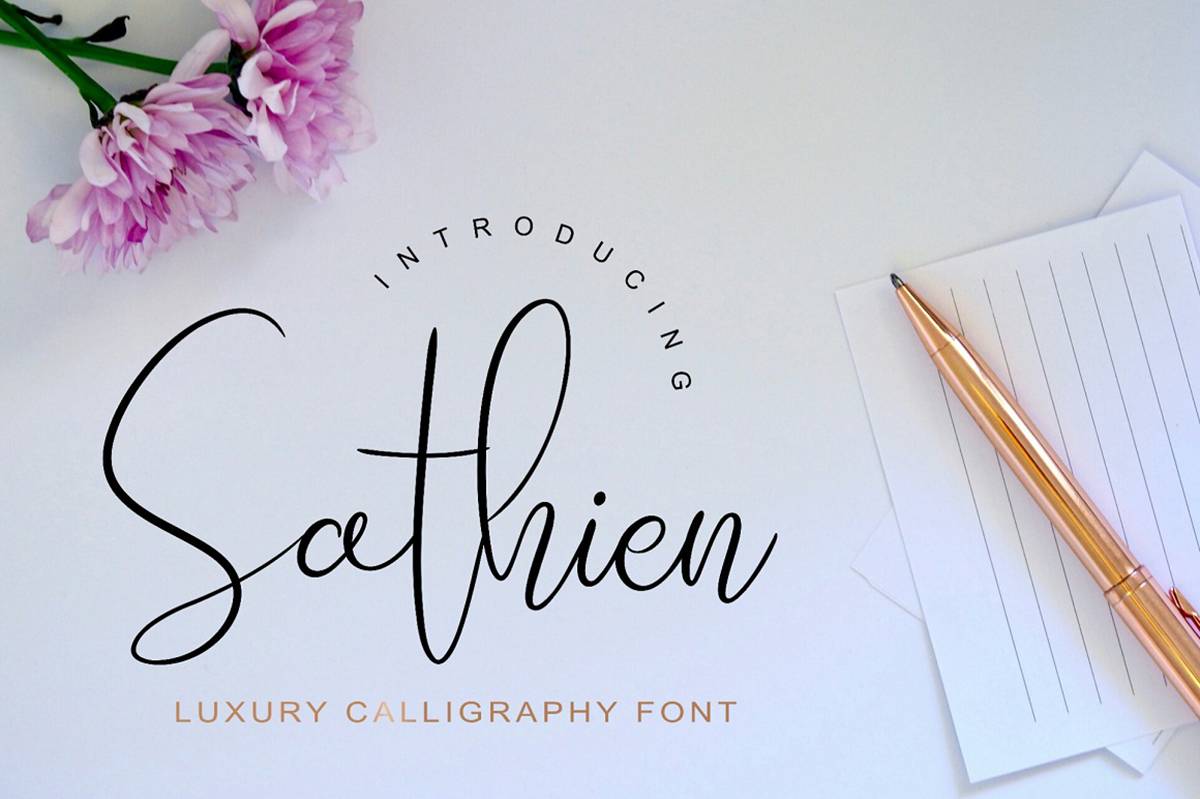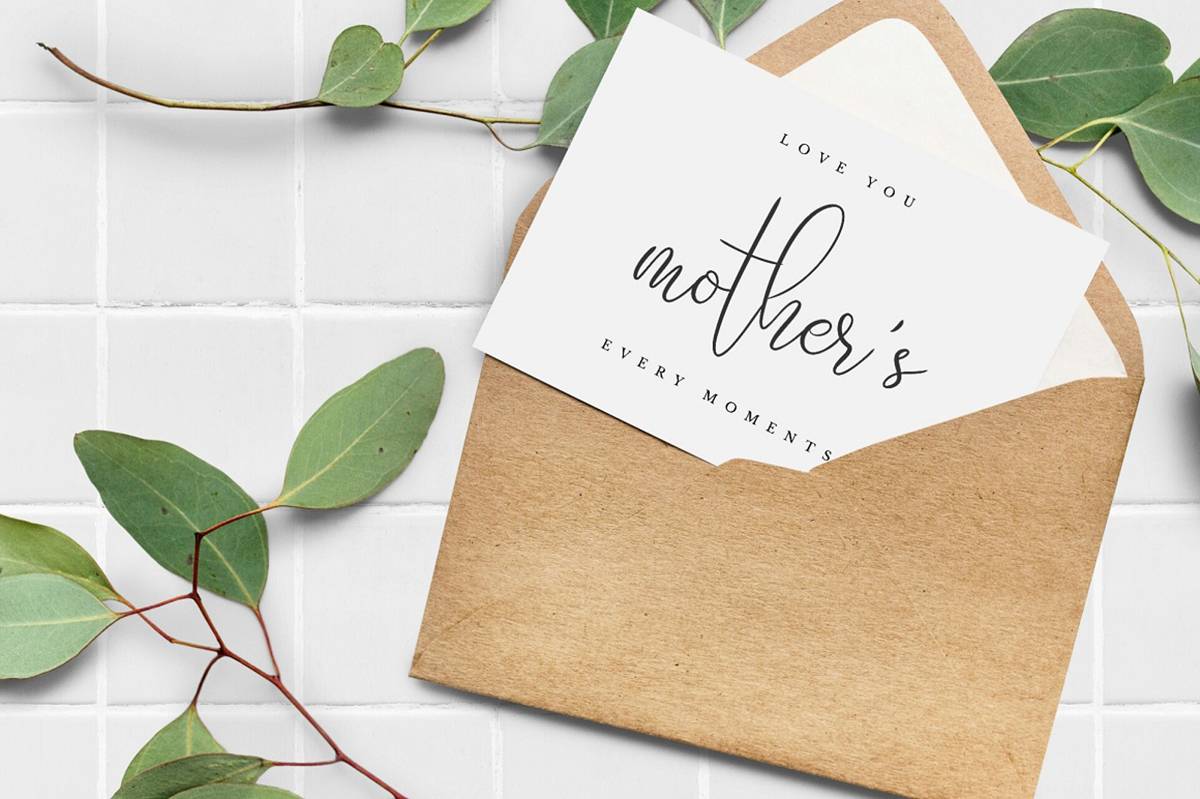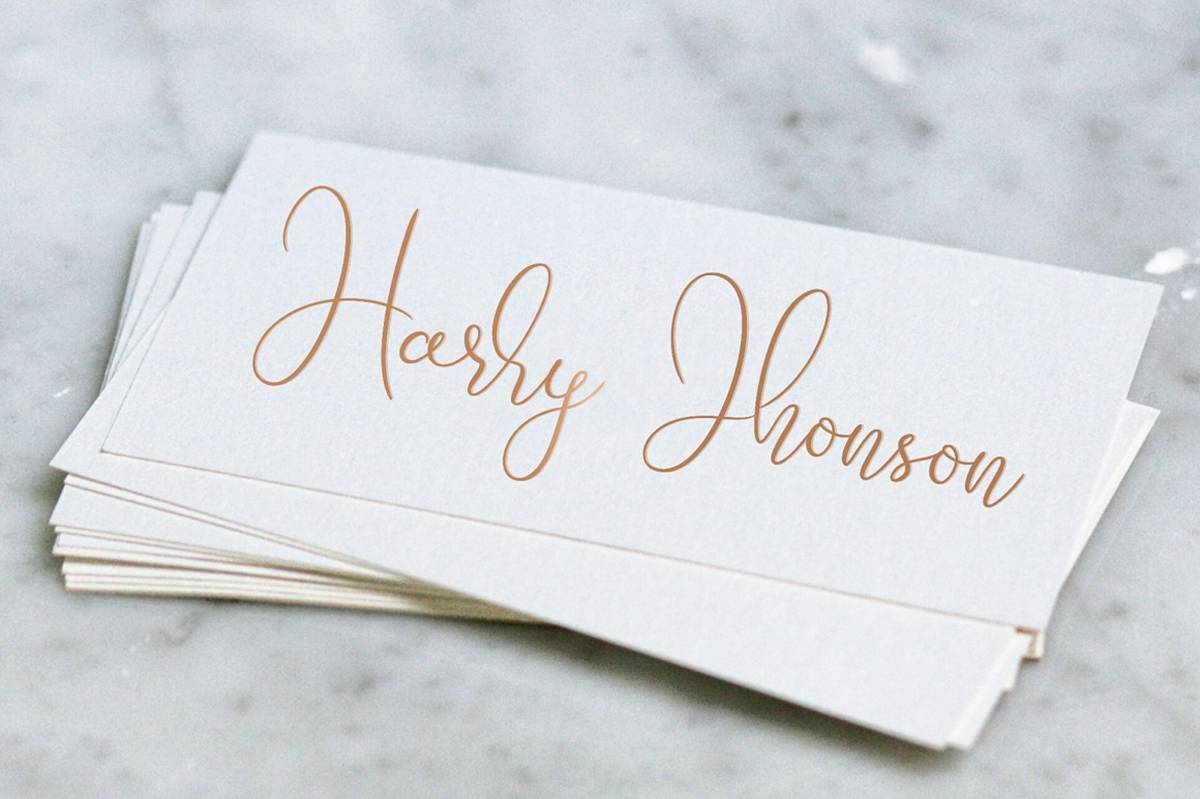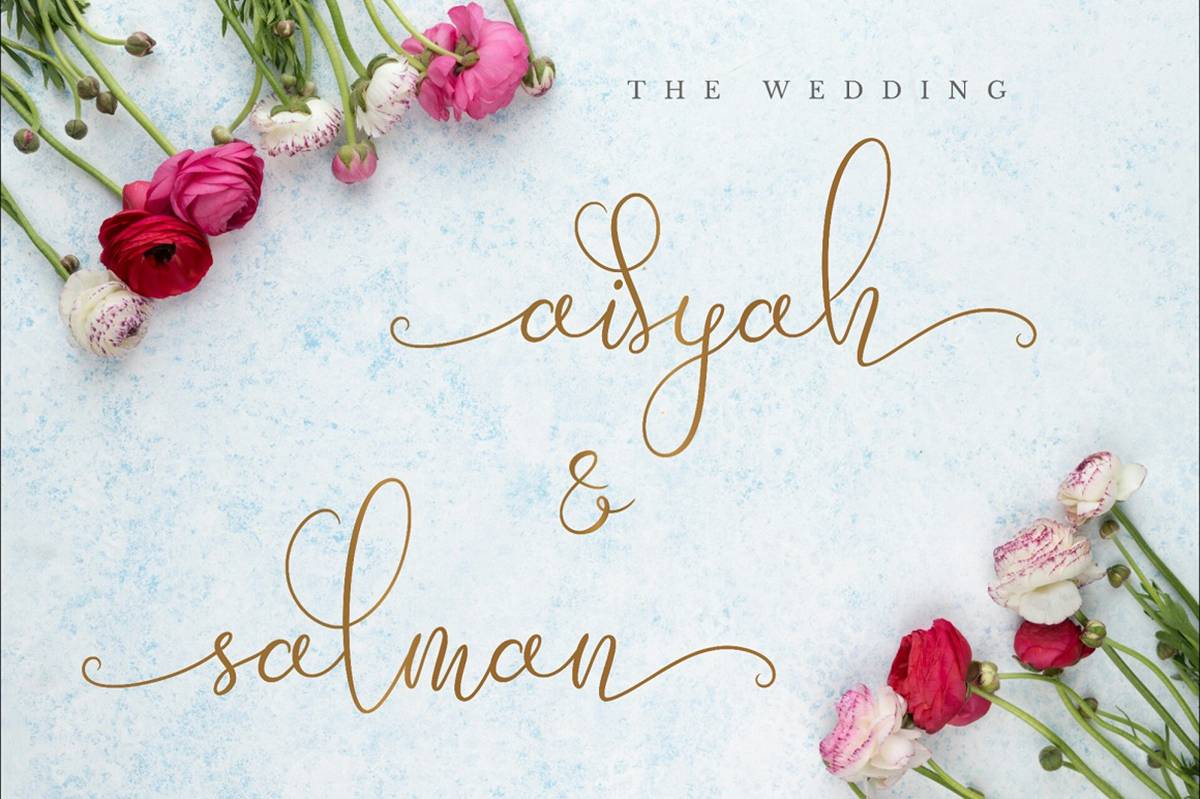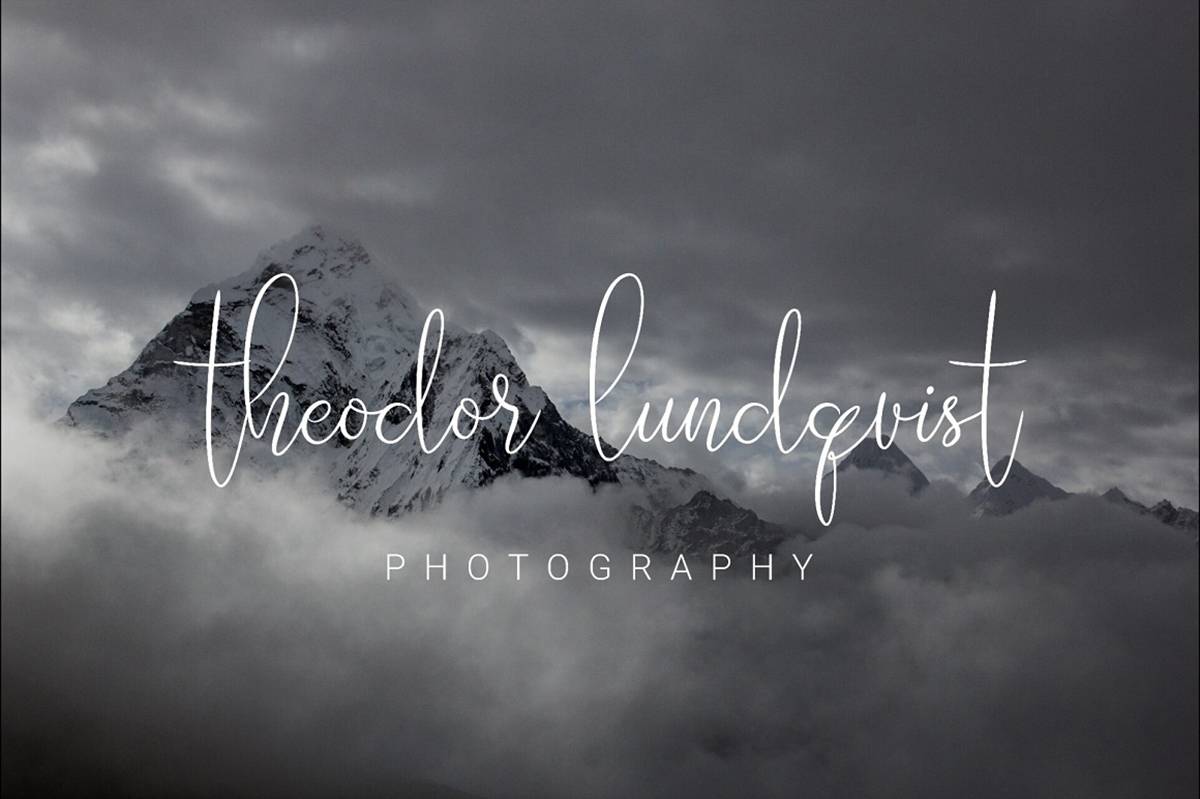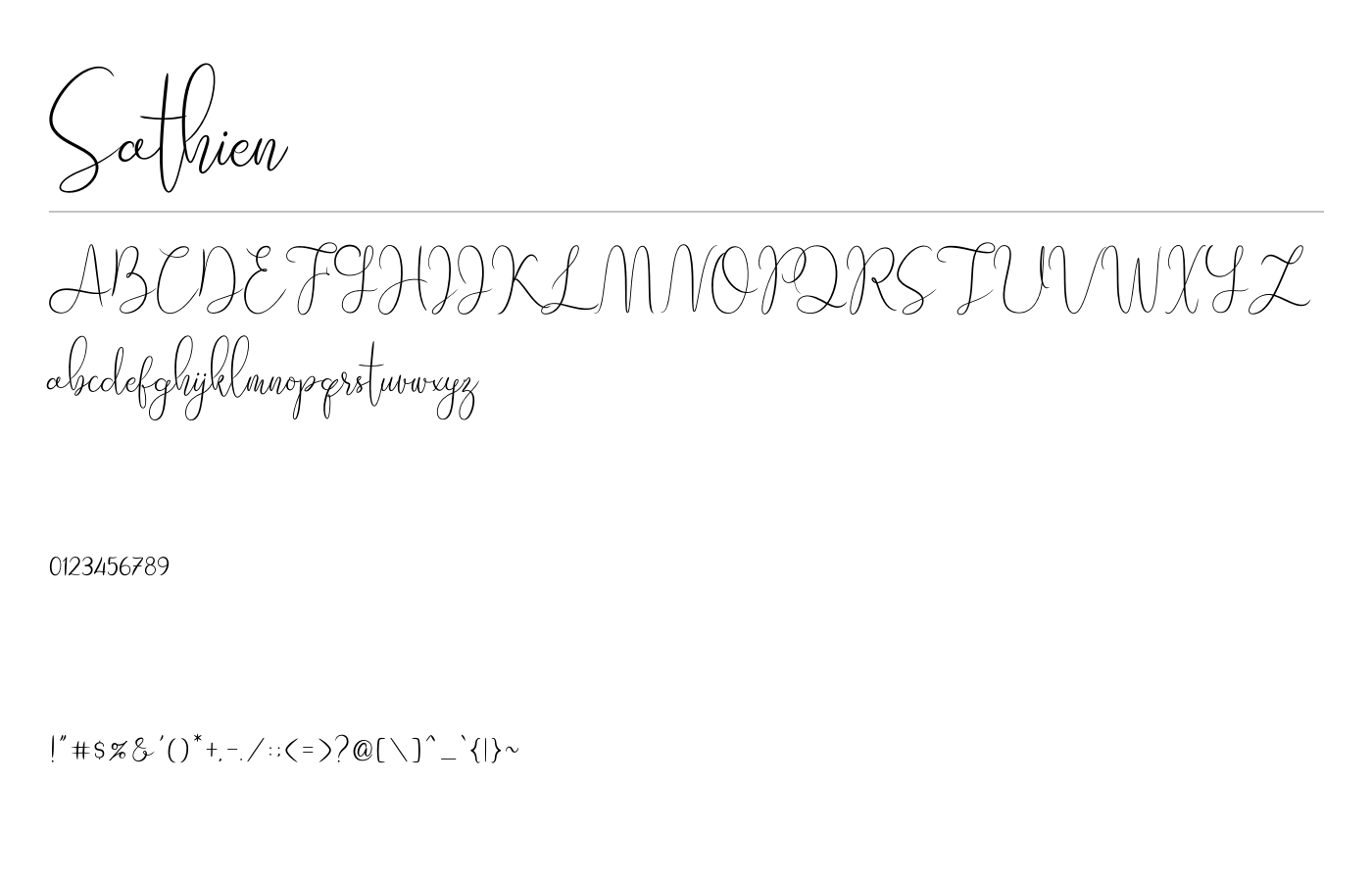
Sathien is an elegant, delicate script font with fine, flowing lines that create a graceful and airy feel. Its slender, hand-drawn style with unique loops and swashes brings a sophisticated and artistic touch, making it perfect for invitations, branding, and creative projects that seek a refined and personal vibe. This font excels in designs where a light and stylish handwritten appearance is desired for a charming and modern look.
Sathien Font
About Sathien Font